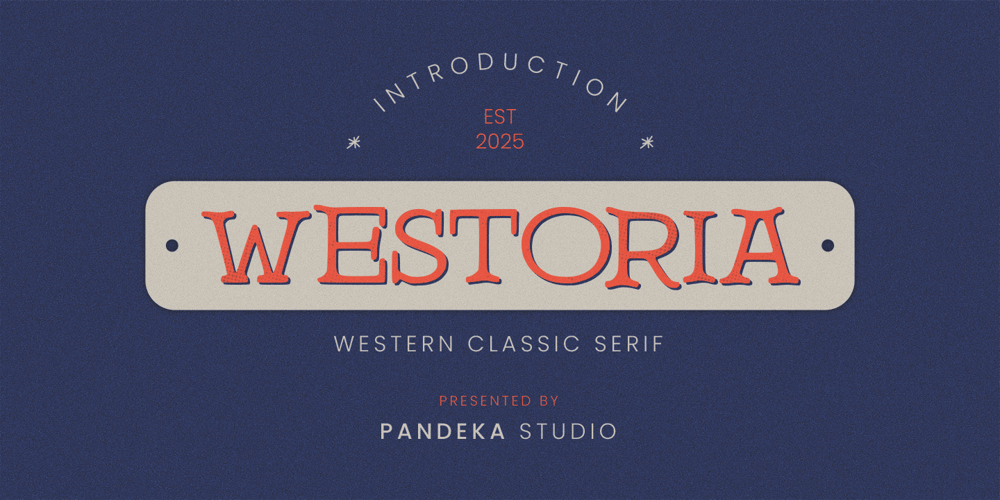
Westoria
Westoria font
Westoria Font Family was designed by Sagara Nararya and published by Pandeka Studio. Westoria contains 1 styles and family package options. Westoria – Western Classic Serif TypefaceWestoria is a bold serif font with a vintage Western aesthetic, perfect for cowboy-inspired designs, rustic branding, classic signage, and bold typography. Its timeless style brings an authentic, rugged charm to logos, packaging, book covers, and more.What’s Included: Main Files formats 1 Style: Regular Full Character Set: Uppercase, lowercase, numbers, symbols, and punctuation Easy to Use: Works on both PC & Mac Compatible with Adobe Illustrator, Photoshop, Microsoft Word, Canva, and more PUA Encoded: Fully accessible without additional software Western Classic Serif Bold Typography Vintage Aesthetic Rustic Design Timeless Style Cowboy Lettering Unique TypefaceThank you and happy designing!Pandeka Studio